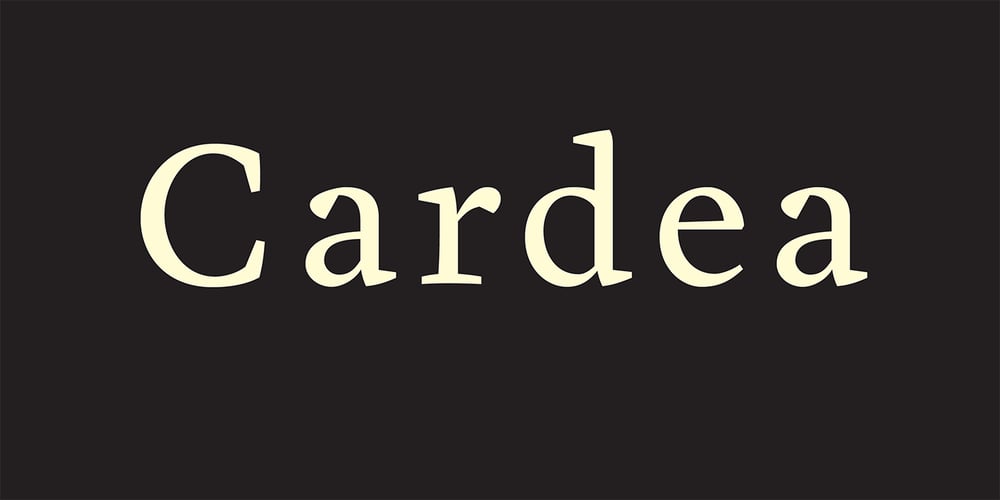
Cardea Font Family was designed by David Cabianca and published by Emigre. Cardea contains 12 styles and family package options. The Cardea family of typefaces is the outcome of David Cabianca’s 2003–04 MA Typeface Design experience at the University of Reading. With Cardea, Cabianca intended to mix classical and modern characteristics, and in the process he created a typeface that “sparkles” on the page, with high contrast, luster and crisp edges. The result is a type with a muscular or sculptural feel much like the work of artists like Arne Quinze or Mark di Suvero. Cardea was designed to function as a text face. It features three weights each with accompanying italics, small caps and a variety of ligatures.